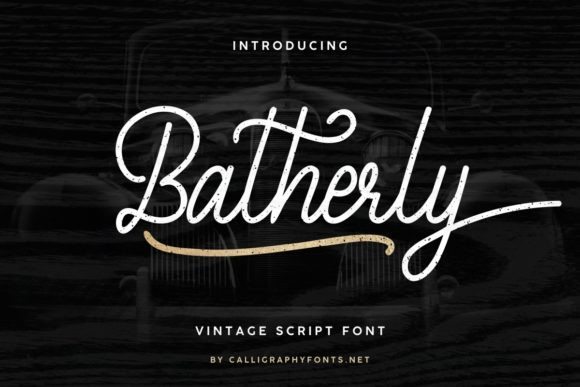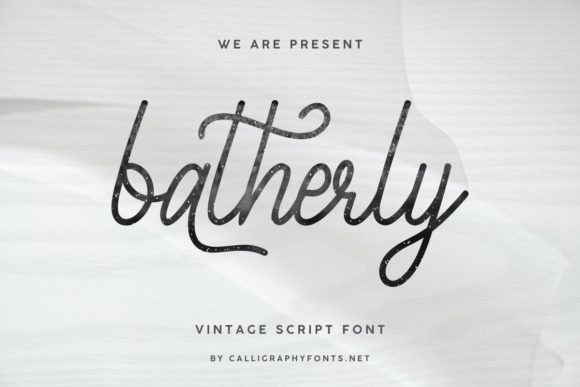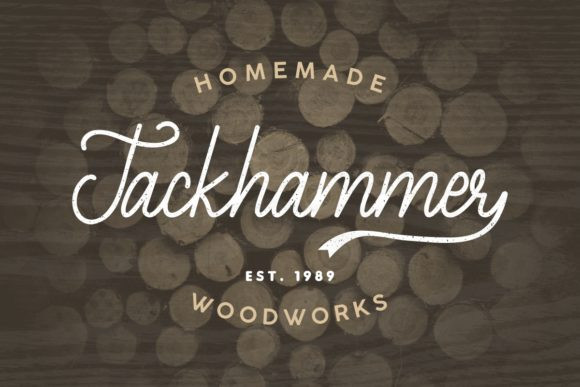
Batherly Font
Batherly is a delicate, vintage styled handwritten font. It features a varying baseline, smooth lines, gorgeous glyphs and stunning alternates. Fall in love with its incredibly versatile style and use it to create spectacular designs!